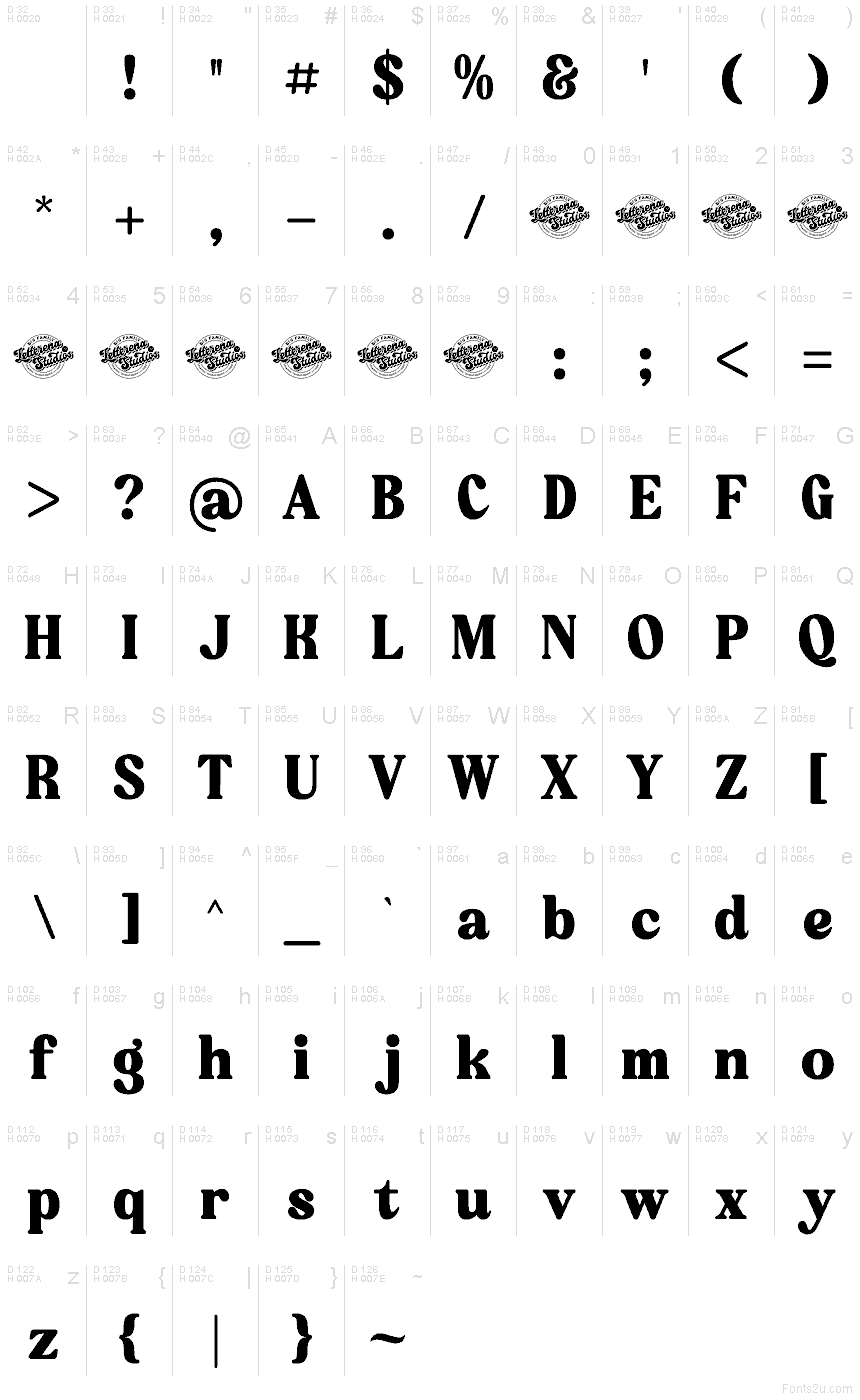
Bristle Radiant typeface by Letterena Studios is a free serif font. Its defining move is the plush, inky weight packed into sculpted serifs and tight curves, creating a confident rhythm that reads as both elegant and a little dramatic. The spacing feels deliberate—close enough to lock headlines together, yet open in the counters—so titles look crisp and striking without extra tweaking.
Using Bristle Radiant, headlines snap into focus on beauty branding, boutique logos, book covers, posters, editorial mastheads, and premium packaging. This free font carries a luxe, tactile presence that holds up at large sizes and still charms in shorter subheads. Pair it with a light geometric sans for body copy, and let the contrast do the storytelling.